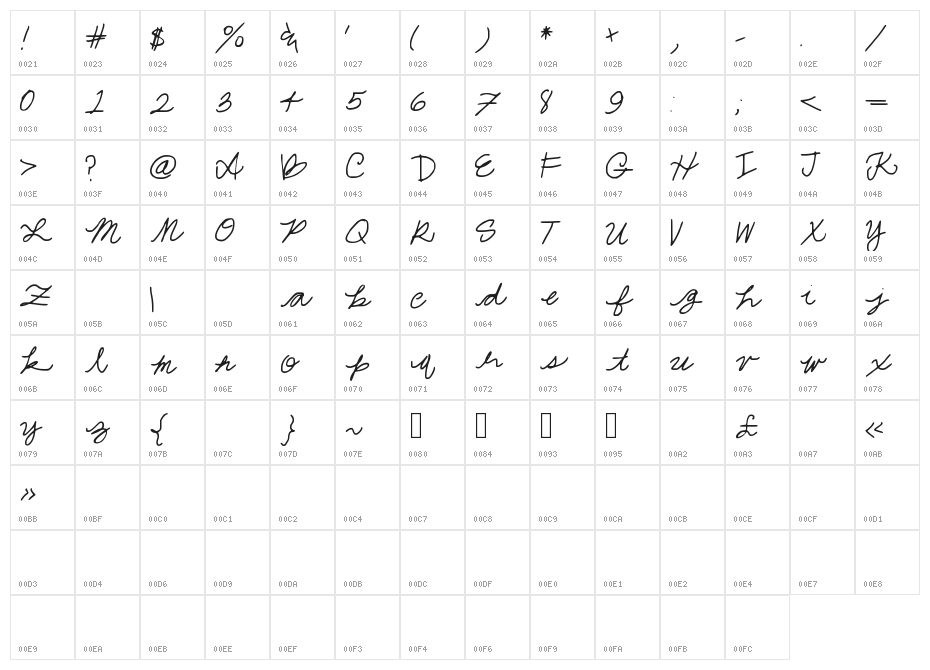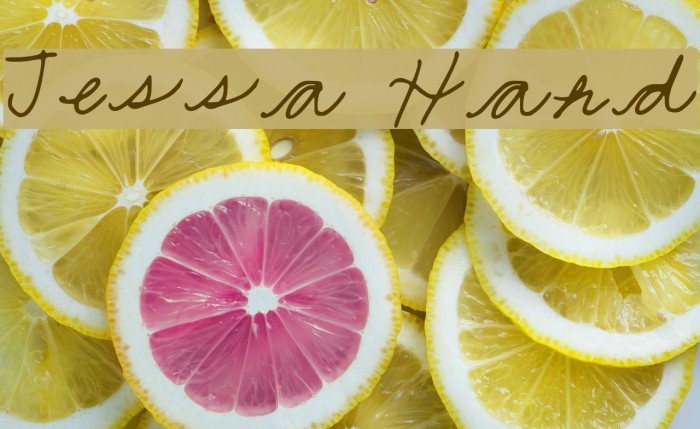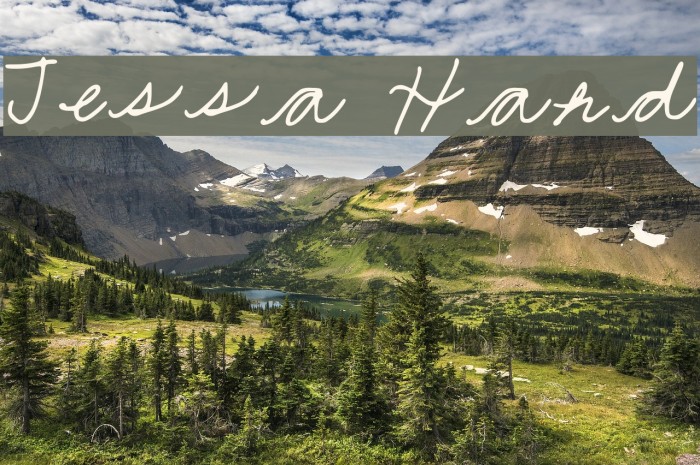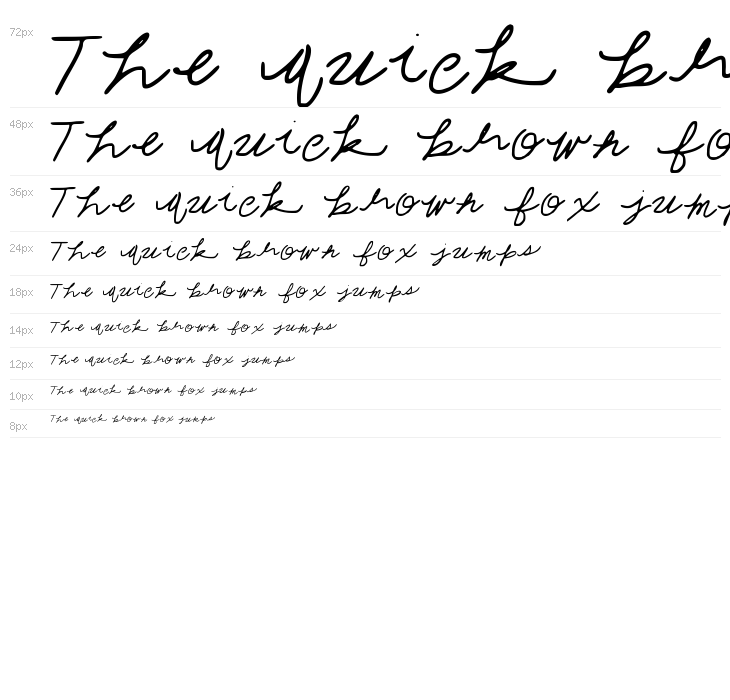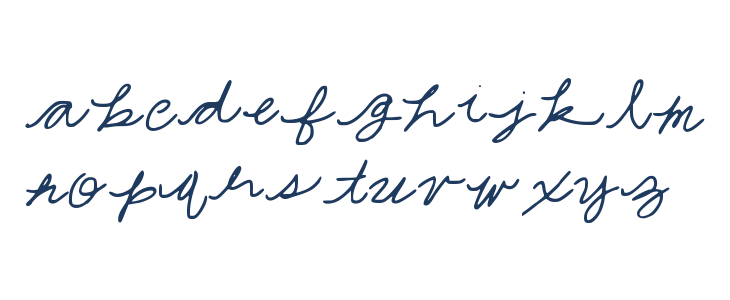
Jessa Hand Font
Jessa Hand Description
This font features a flowing, handwritten style that exudes a sense of elegance and personal touch. The characters are connected in a cursive manner, with smooth curves and a consistent slant that mimics natural handwriting. The uppercase letters are slightly larger and more pronounced, while the lowercase letters maintain a uniform height, enhancing readability. The numerals and special characters are crafted with the same fluidity, ensuring a cohesive look across all text. This font is ideal for projects that require a personal or artistic flair, such as invitations, greeting cards, or branding materials.
| Use Case | Logos, Headlines, Artistic projects |
| Proposed Projects | Ideal for invitations, greeting cards, personal branding, and artistic projects. |